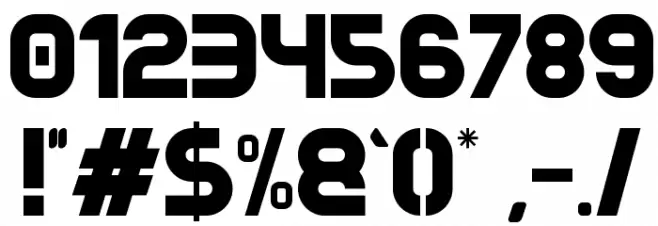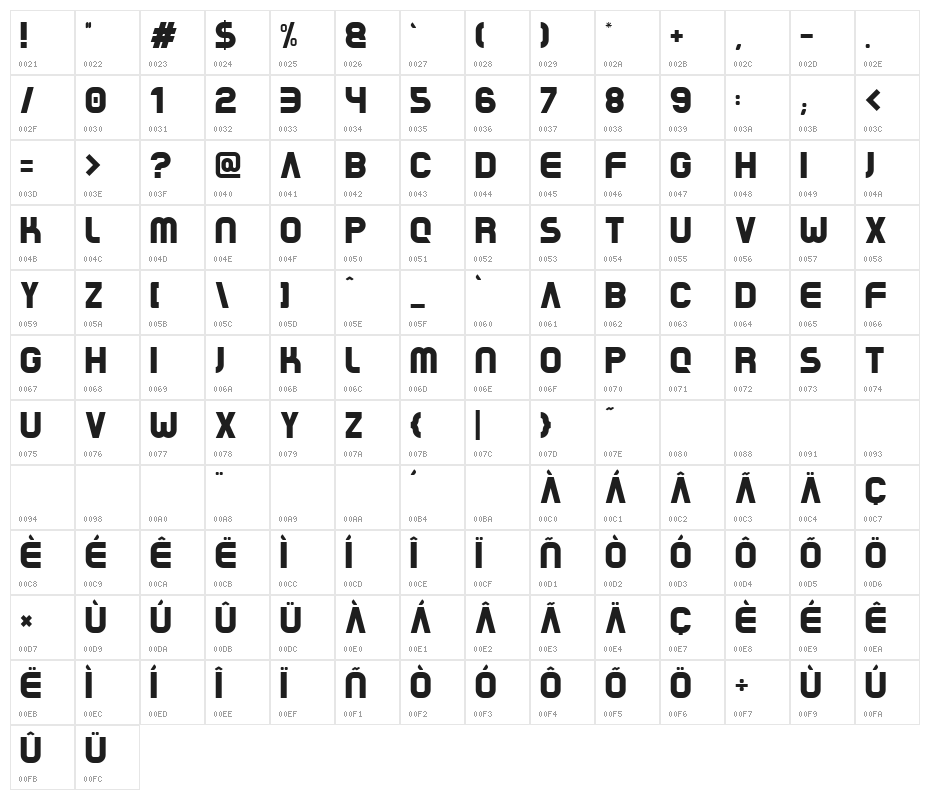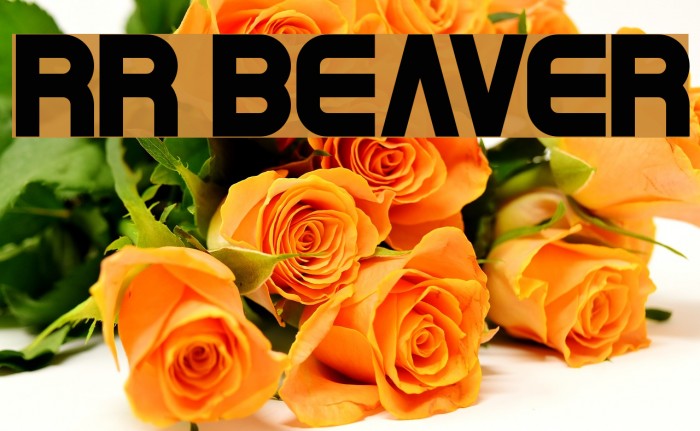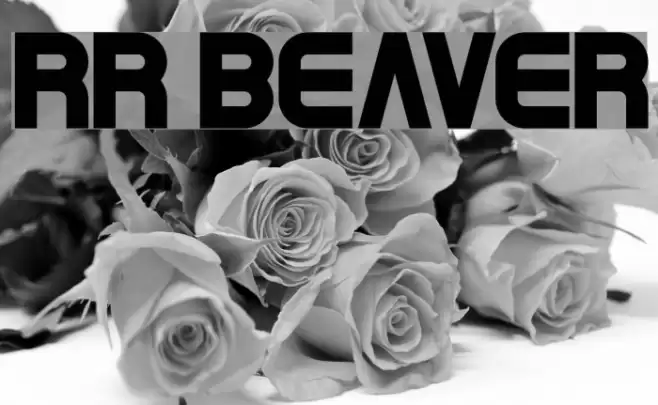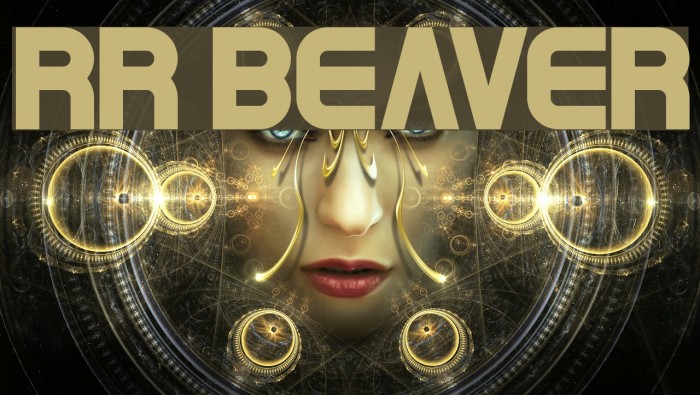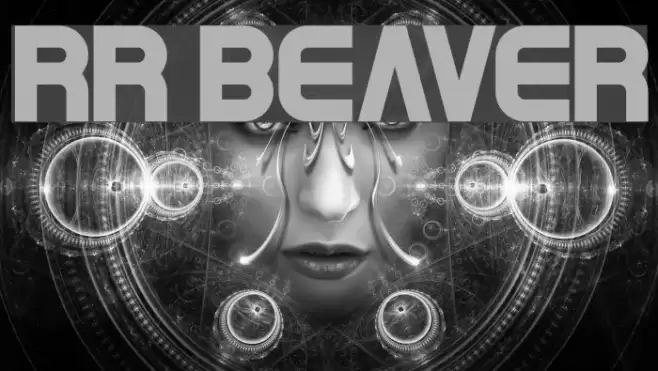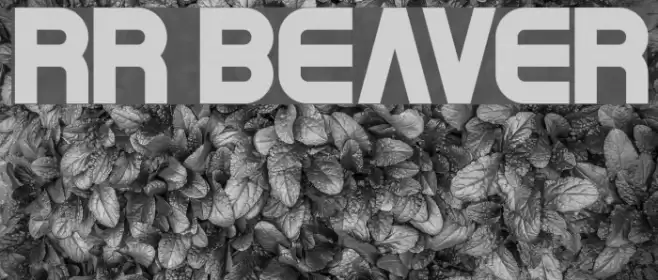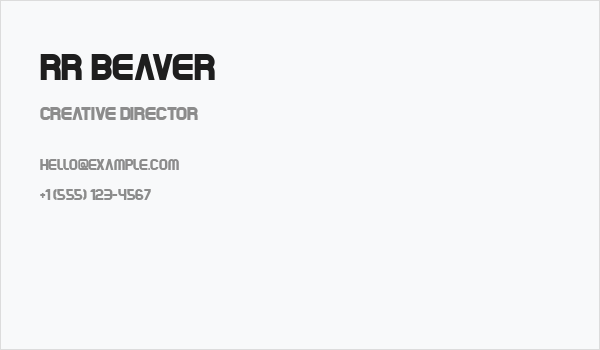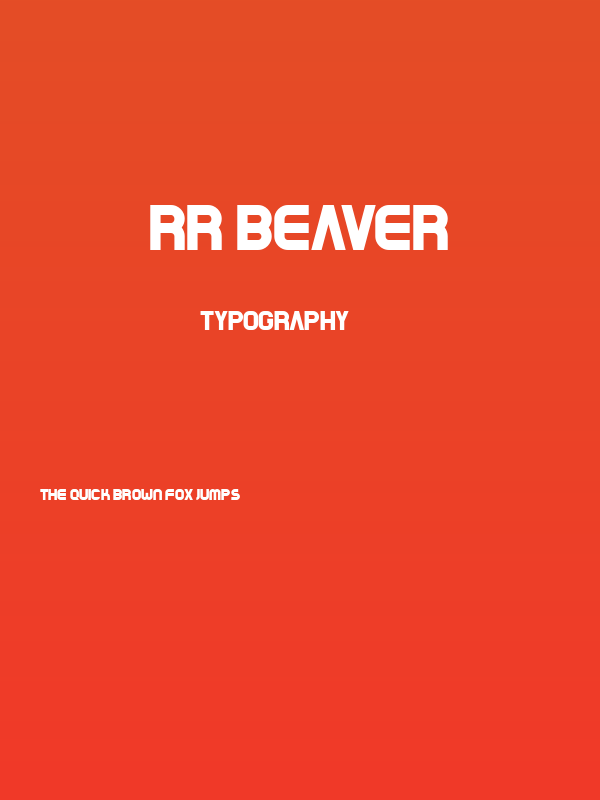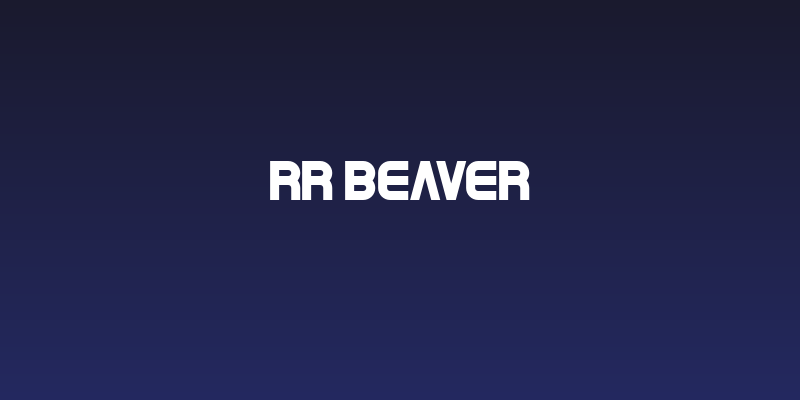
RR Beaver Font
RR Beaver Description
This font features a bold, geometric design with a modern and futuristic aesthetic. The characters are constructed with thick, uniform strokes, creating a strong visual impact. The uppercase letters are particularly striking, with a blocky, angular appearance that suggests a sense of stability and strength. The lowercase letters maintain this boldness, ensuring consistency across the typeface. Numbers and special characters are equally robust, making them suitable for a variety of applications. The overall style is clean and minimalistic, with a focus on clarity and readability. This font is ideal for projects that require a contemporary and assertive look.
| Proposed Projects | Ideal for branding, headlines, posters, and digital interfaces where a strong, modern presence is desired. |